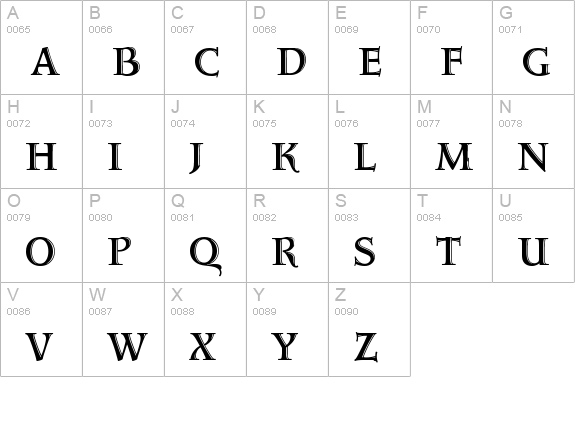
AquitaineInitialsPlain Font Details
AquitaineInitialsPlain font is a classic and elegant typeface that exudes sophistication and style. With its clean lines and timeless appeal, this font is perfect for adding a touch of class to any design project. Whether you're creating invitations, signage, or branding materials, AquitaineInitialsPlain font will elevate your work to the next level. The best part? AquitaineInitialsPlain font is available for free download at FontsMarket.com. So you can bring a touch of luxury to your projects without breaking the bank. Don't miss out on this opportunity to add a touch of elegance to your designs with AquitaineInitialsPlain font. Download it today and see the difference it can make!